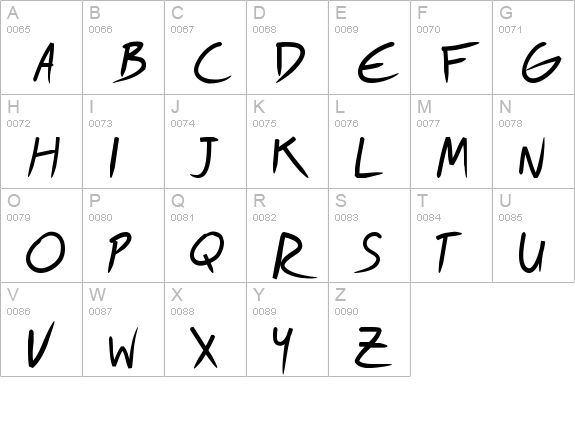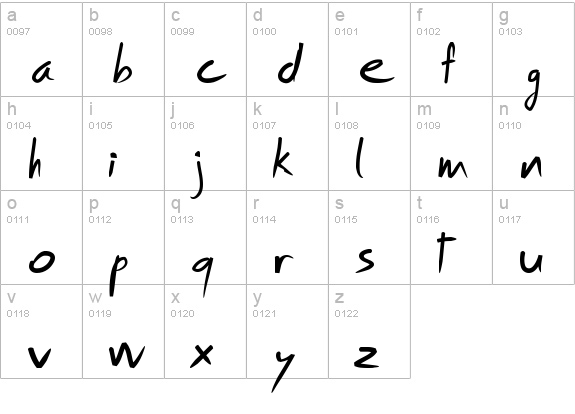
Royfont Font Details
Royfont is a modern and stylish font that exudes elegance and sophistication. With its sleek lines and balanced curves, Royfont is perfect for a wide range of design projects, from branding to editorial design. This versatile font is designed to make your text stand out and grab attention. One of the best things about Royfont is that it is available for free download at FontsMarket.com. This means that you can easily access this beautiful font and use it in your projects without any cost. Whether you are a professional designer or a hobbyist looking to spice up your creations, Royfont is a fantastic option that won't break the bank. With its timeless appeal and easy readability, Royfont is sure to become a staple in your font library. Download it today from FontsMarket.com and start adding a touch of sophistication to your designs.